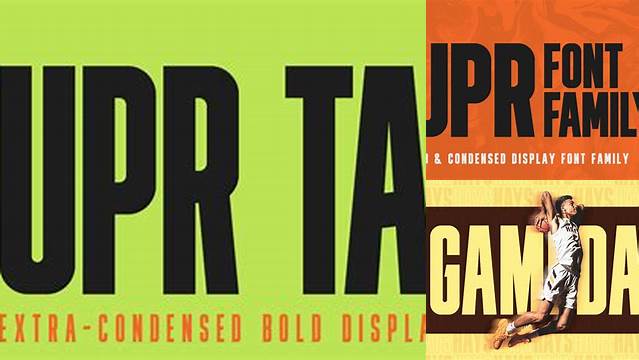
Hey guys! Are you on the hunt for a super cool, eye-catching font that's both tall and free? Well, look no further! This guide is all about the amazing SUPR Tall font, and how you can download it for absolutely nothing. We'll dive deep into what makes this font so special, where to find it, and how to use it to make your designs pop. Get ready to level up your typography game! Let's get started!
What Makes SUPR Tall Font So Special?
Okay, so what's the big deal with the SUPR Tall font? Well, first off, it's all about its height! This font is designed to stand out, literally. Its elongated vertical structure makes it perfect for grabbing attention, whether you're designing a poster, a website header, or a social media graphic. SUPR Tall isn't just tall; it's also incredibly stylish. It often boasts a modern, clean aesthetic that works well with a variety of design styles. The font's versatility is another huge plus. You can use it for headings, titles, or even short blocks of text. Think about it – a striking font like this can transform your entire project, giving it a unique and memorable feel. It's the kind of font that makes people stop and take notice. Plus, the fact that it's free makes it accessible to everyone, from seasoned designers to total beginners. So, whether you're aiming for a bold statement or a touch of elegance, SUPR Tall font has got you covered. The specific design details vary, but many versions of this font feature a geometric or minimalist design, adding to its contemporary appeal. That clean look translates well across different platforms and applications. It pairs nicely with both simple and complex designs, meaning you can use it in all sorts of projects. Plus, it's a total time-saver. You don't have to spend hours trying to create a custom font when this gem is available for free. The modern look and the instant attention it grabs is great. This makes SUPR Tall an excellent choice for projects where you want to convey a sense of modernity, innovation, or even a touch of playfulness. Ultimately, what sets SUPR Tall apart is its ability to make your words visually striking without sacrificing readability.
SUPR Tall font's bold personality is a great choice. The simple shape can bring a lot of things.
SUPR Tall Font for Branding and Marketing
Want to make your brand stand out? SUPR Tall font is an awesome tool for branding and marketing. Its unique appearance can help create a strong brand identity. The first thing to consider is your brand's personality. Does it need to be playful, modern, or elegant? SUPR Tall is incredibly versatile and can be adapted to suit different brand personalities. Use it to create striking logos that will be remembered. The elongated shape of the font will make your logo stand out from the crowd. A well-designed logo will be the first thing that attracts customers. In addition to logos, SUPR Tall works great for headlines and titles in your marketing materials. Use it in your social media posts, website headers, and even print ads to make your message pop. For example, if you're launching a new product, use this font for the announcement and to generate excitement. Consistency is key when using SUPR Tall font across your brand materials. Make sure the font is consistent with all elements. This creates a cohesive and professional look that reinforces your brand image. Pair SUPR Tall with complementary fonts for body text to create a balanced design. Think about your target audience. Is this font appropriate for them? Consider what will appeal to your audience and help you connect with them. Make sure your branding creates an engaging experience that sticks with your customers.
SUPR Tall Font: Best Practices for Web Design
Using SUPR Tall font in web design can elevate your website's look and feel, but there are some best practices to keep in mind. Because of its distinctive shape, it requires careful consideration to ensure readability and user experience. First things first, use it sparingly. Too much SUPR Tall font can be overwhelming, which can make your website look unprofessional. Stick to using it for headings and titles. They need to be eye-catching but still readable. Ensure your website has a responsive design. Since SUPR Tall is a tall font, it is very important to make sure it looks good on all devices. Test your website on various devices to check its appearance. Pay close attention to line spacing and kerning. This will ensure the text is easy to read. Adjust the line height for text to prevent overcrowding. Adequate spacing prevents the text from looking cluttered, which keeps your audience engaged. Select appropriate colors. Because of its tall structure, contrast is crucial. Make sure your text has enough contrast. Check for proper color contrast to ensure it is accessible to all users. Consider the weight of the font. Lighter weights can look elegant, while heavier weights can be bold. Choose the weight that complements your website's design and purpose.
SUPR Tall Font in Graphic Design: Tips and Tricks
Ready to get creative with SUPR Tall font in your graphic design projects? The elongated style adds a unique touch, but here are some tips and tricks to help you make the most of it. Start with understanding the font's character. Pay attention to its unique characteristics and how they fit your project. It is super important to understand its style. Use it for headlines and titles to grab attention. It is perfect for these purposes. Remember to pair it with complementary fonts for body text. This creates a harmonious and professional look. Experiment with different weights and styles. This allows you to add depth and interest to your designs. Consider color combinations. Contrast is essential to making the font stand out. Play around with different backgrounds and text colors to enhance its appearance. Ensure readability. Make sure the font is still readable. Adjust spacing and kerning to optimize readability. This ensures that your message is clear and effective. Consider the overall design. Integrate the font into your design so that it looks natural. Make sure that it fits the overall tone of your project. Test out different layouts and arrangements. Play with placement, size, and positioning to achieve a visually appealing composition. Practice using the SUPR Tall font. By experimenting with different techniques, you can achieve creative and eye-catching designs.
SUPR Tall Font: Combining with Other Fonts
When it comes to typography, combining different fonts is an art form. With SUPR Tall font, the key is finding a good match. The right combination can enhance readability and create a visually appealing design. Select fonts that complement each other. Consider the style and personality of each font. Consider the overall aesthetic you want to achieve. If the SUPR Tall font is bold and modern, then try pairing it with a clean sans-serif font for body text. This combination can create a good balance. Try using fonts from the same family to maintain consistency. This can ensure that the designs match the overall design. Create visual hierarchy. The different styles can help to direct the reader's eye and emphasize important information. Experiment with different font sizes. You may need to experiment to find the right size to pair with the other fonts. Play with the font's weight to create emphasis. Choose lighter weights for body text and bold weights for headings. Keep an eye on the spacing. Adjust the line height, letter spacing, and kerning. Try it out on various designs to see which one works best. Test out different combinations to create the best typography.
SUPR Tall Font: Advanced Typography Techniques
Ready to take your typography skills to the next level with SUPR Tall font? Let's dive into some advanced techniques. Mastering these techniques will help you create truly stunning designs. Start by experimenting with kerning and tracking. Adjust the spaces between letters and words to enhance readability. Fine-tuning these details can make a big difference in your design. Experiment with different weights and styles. Playing around with different weights can add depth and visual interest to your design. This can help to emphasize your message. Try using SUPR Tall in creative layouts. Think outside the box. Consider using the font in unique and unexpected ways. Consider using it at an angle or by overlapping text to achieve some cool effects. Experiment with color and contrast. Contrast is critical for making your text pop. Play with different colors to create visually appealing compositions. Explore different text effects to add depth. Shadow, outlines, and gradients can make your text stand out. Try blending techniques. Use these effects to draw attention. Mastering these techniques can make your designs stand out. Practice and experiment. The more you practice, the better you will get. The best way to master this is to play around with various techniques. Create eye-catching typography.